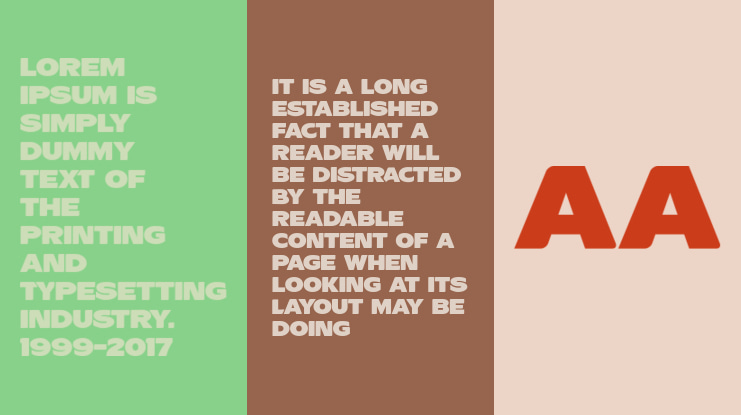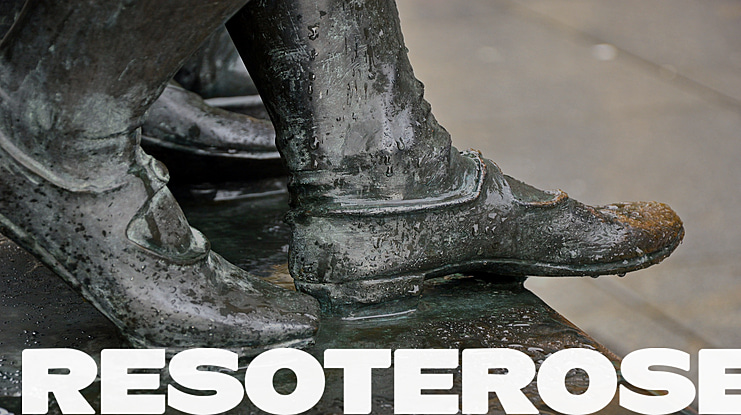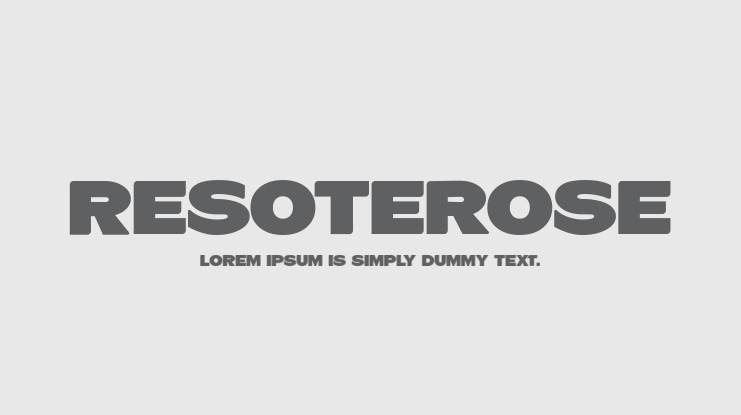
ResotERose Font
Exper­i­men­tal, color font ResotE-​Rose in two for­mats: Open­Type-SVG and COLRv1. To be able to use the color fonts you need to have installed Adobe Phở­to­shop CC2017, Adobe Illus­tra­tor CC2018, InDe­sign CC2019, Mozilla Fire­fox, Chrome, Opera or Microsoft Edge.